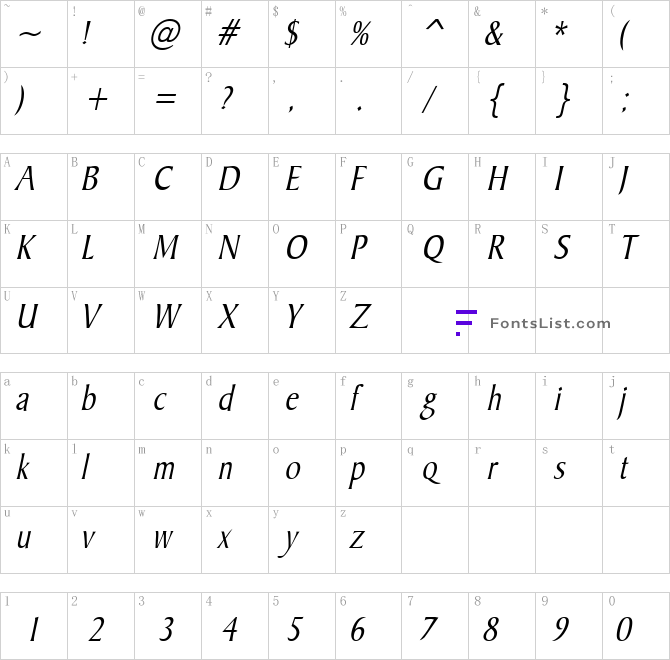
- Font Name:Barrett-Condensed
Barrett-Condensed-Italic.ttf is a very beautiful artistic font, Barrett-Condensed-Italic.ttf is widely used in the design and printing of various books and pictures,Barrett-Condensed-Italic.ttf has a strong visual impact,Barrett-Condensed-Italic.ttf is a commonly used font in newspapers, magazines and books, and is used in posters, e-commerce Poster design, store design, logo design, font design and other fields.Barrett-Condensed-Italic.